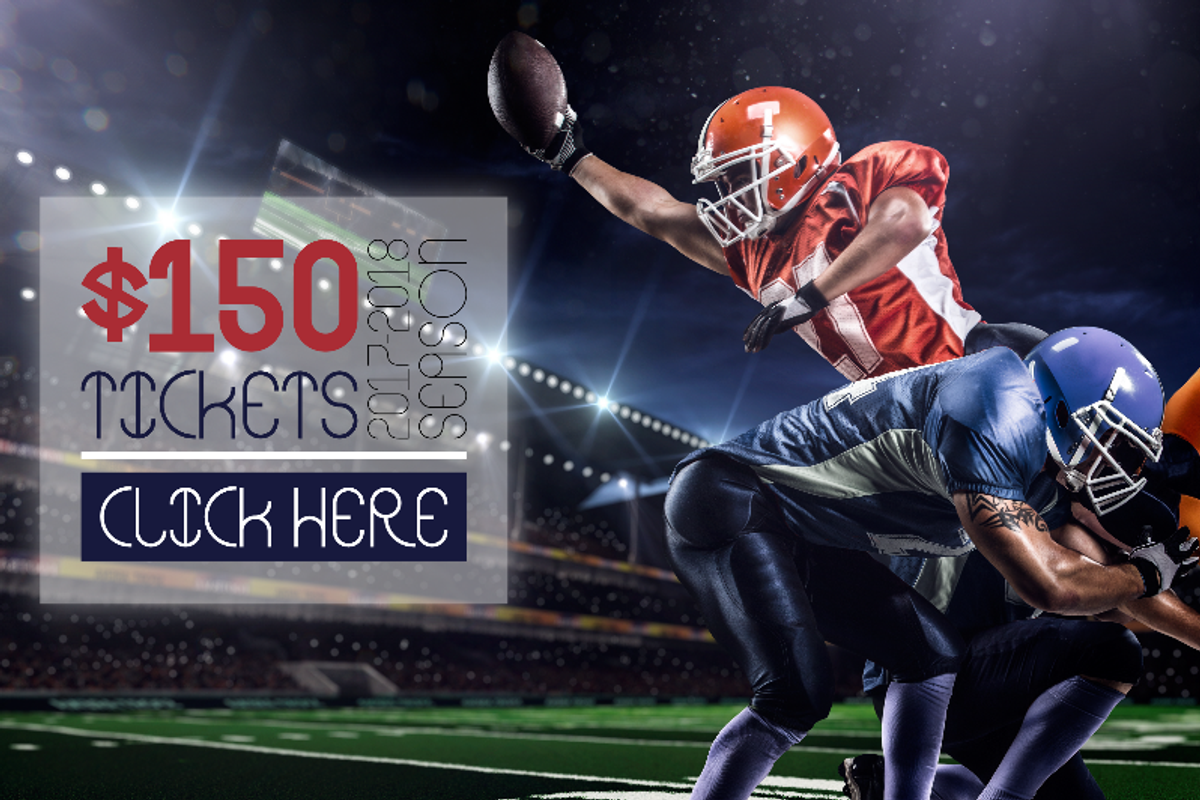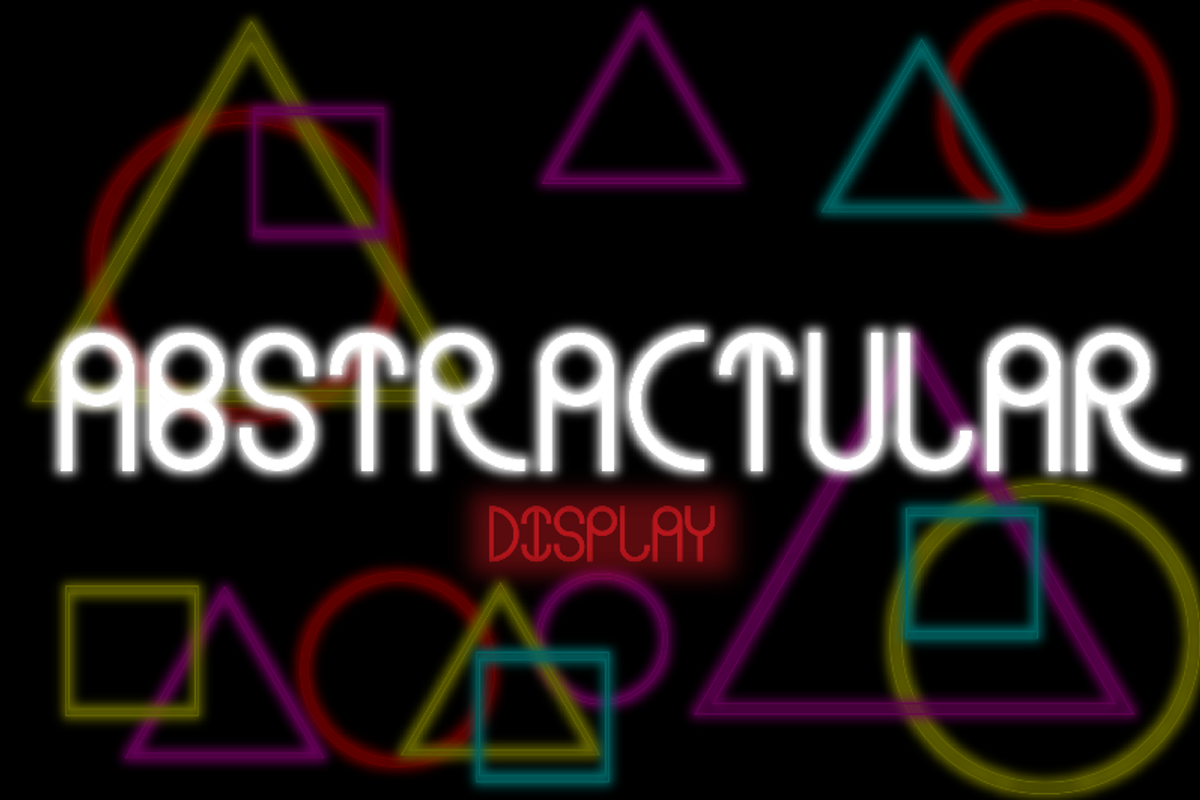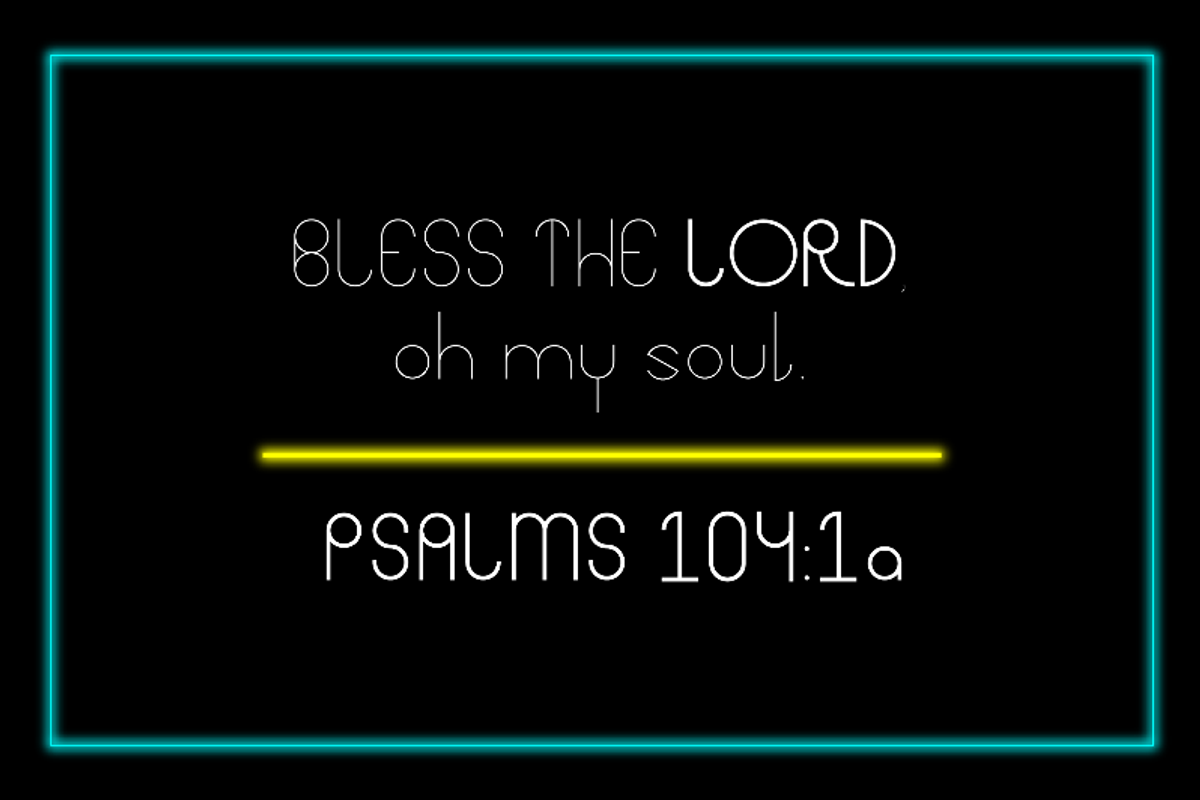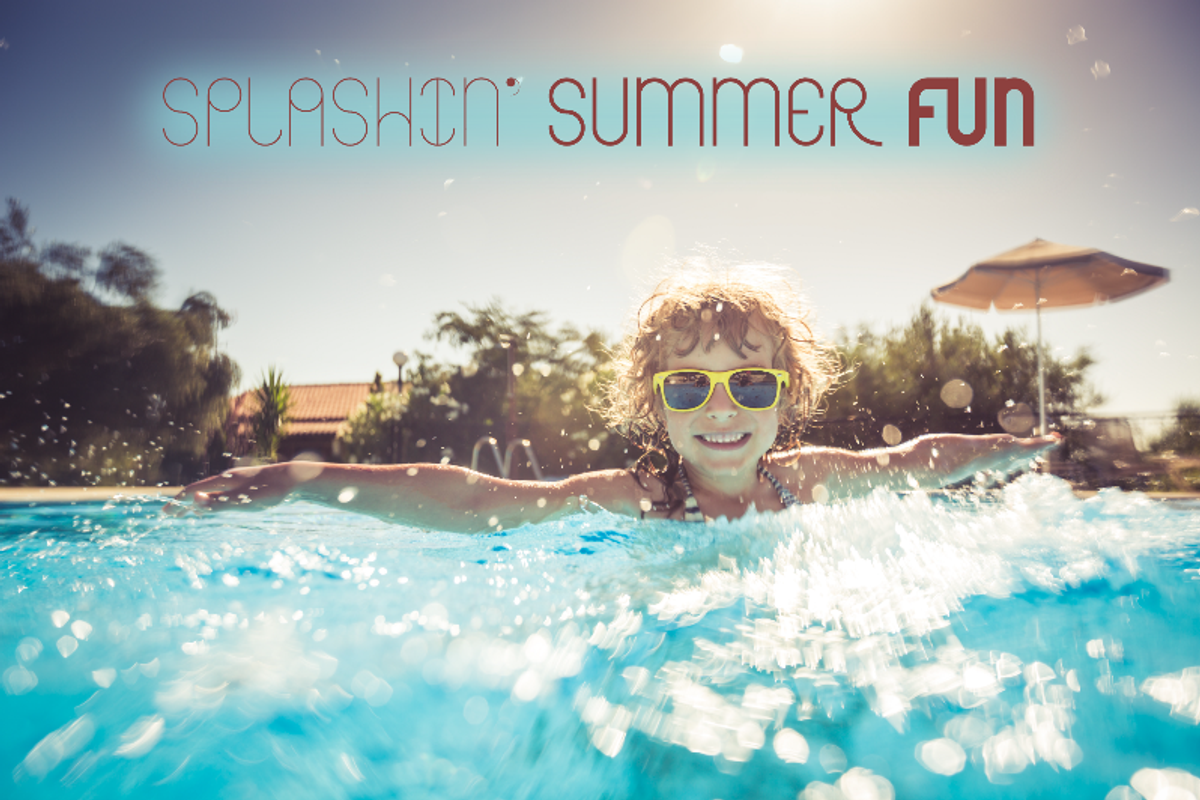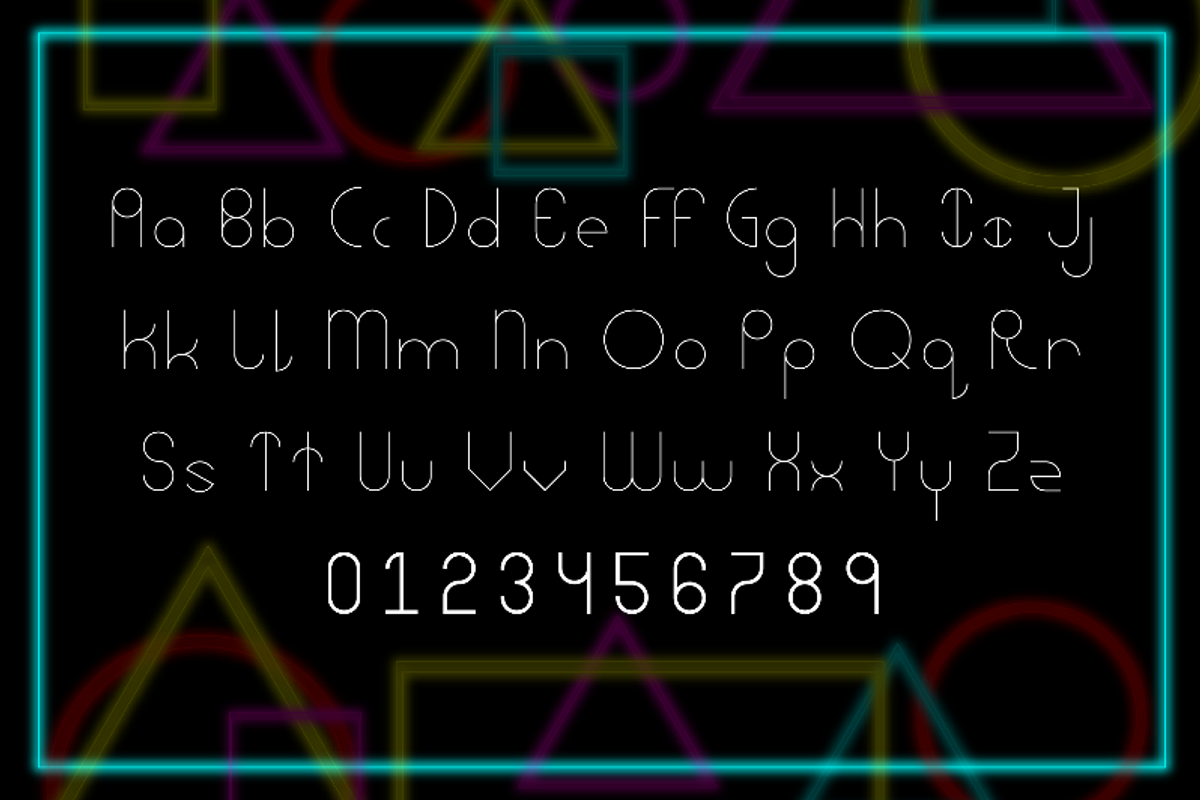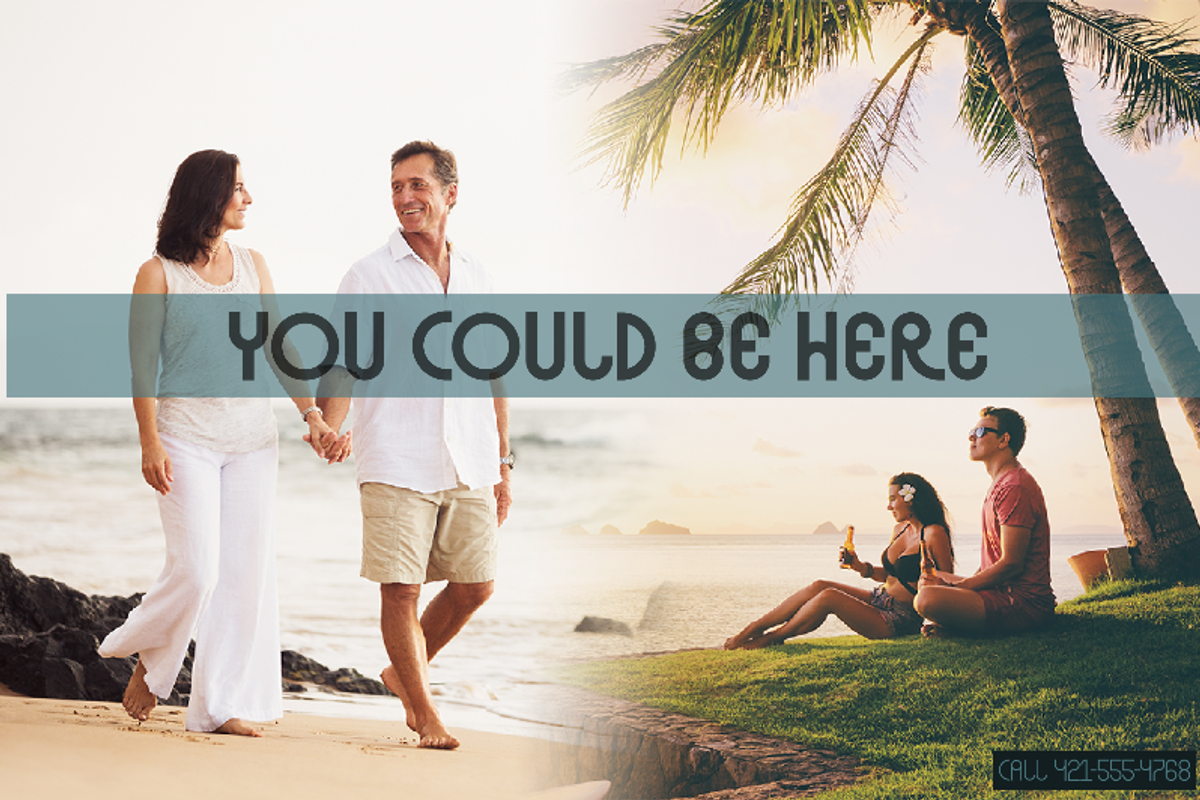
Abstracular Typeface
Abstracular is a geometric, display typeface mostly composed of circles but some triangles found their way into the shapes.
Abstracular Typeface by DefayDesigns fits naturally into Branding, posters, packaging, typography.